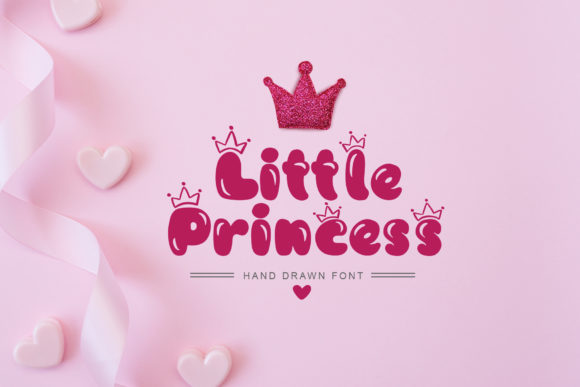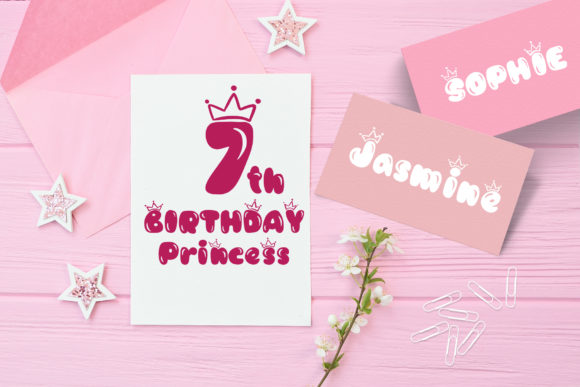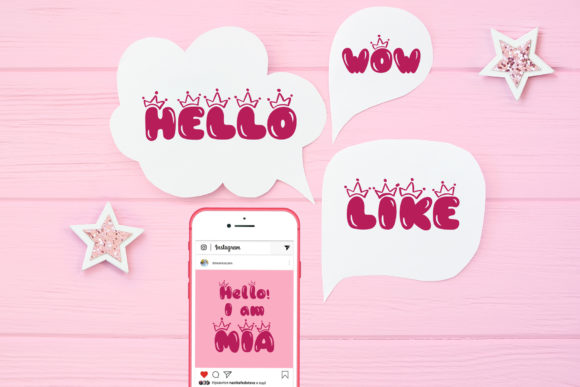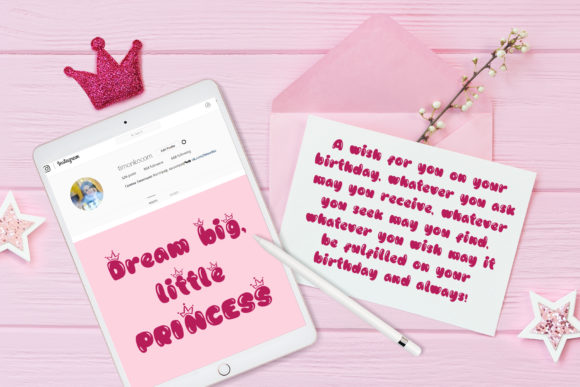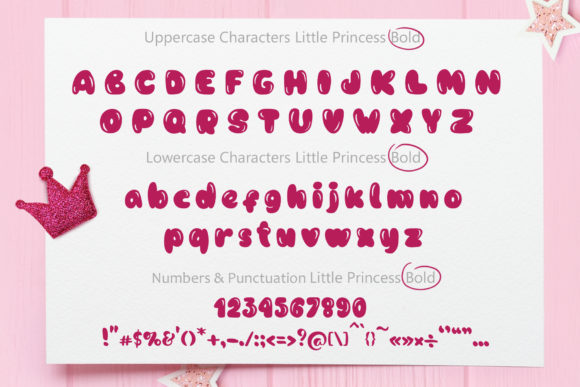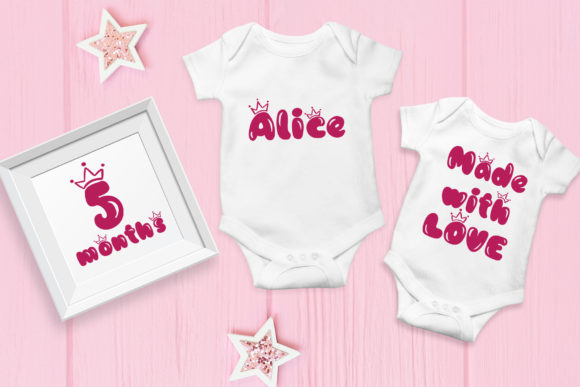
Little Princess Font
Little Princess is a whimsical and cute display font. It’s perfect for babies and children designs. It features characters with crowns and will look amazign in your future crafting projects.